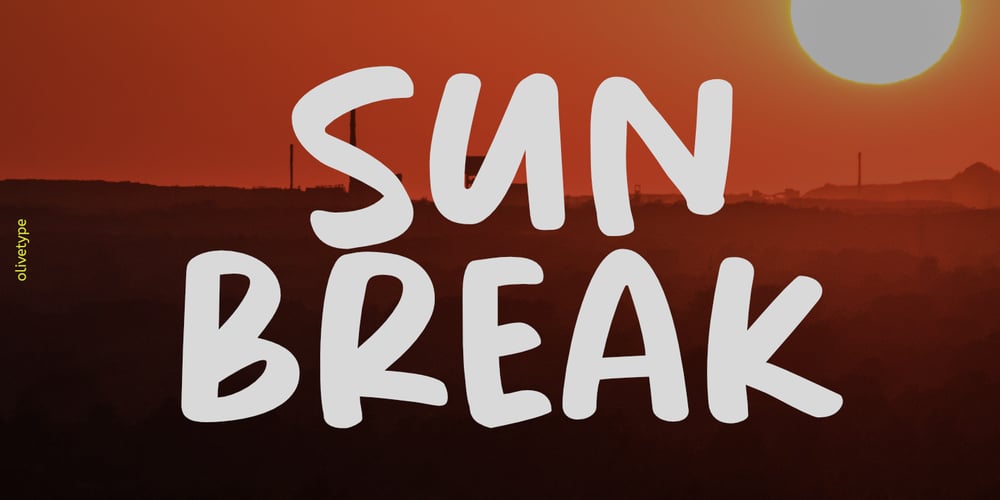
Sunbreak Font Family was designed by Nurul Hidayani and published by Olivetype. Sunbreak contains 1 styles and family package options. Sunbreak is a bold handwritten font, carefully handcrafted to become a true favorite. Its casual charm makes it appear wonderfully down-to-earth, readable, and ultimately, incredibly versatile. Sunbreak will look outstanding in any context, whether it’s being used on busy backgrounds or as a standalone headline!This font is supporting Multi-Languages, which includes: Afrikaans Albanian Catalan Danish Dutch English Estonian Finnish French German Italian Norwegian Portuguese Spanish Swedish Zulu.